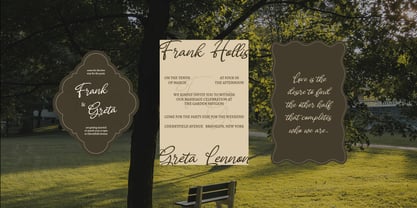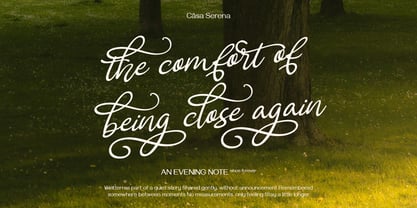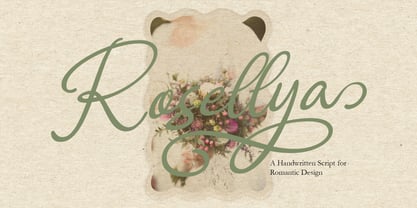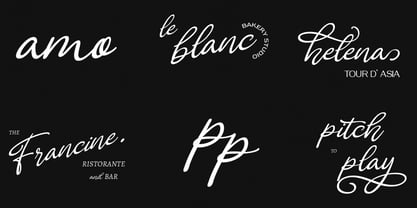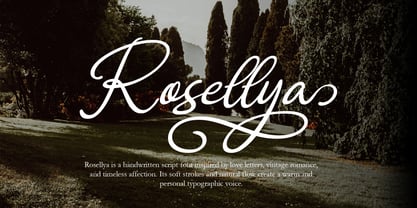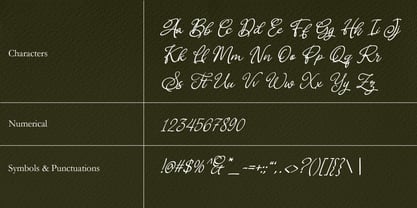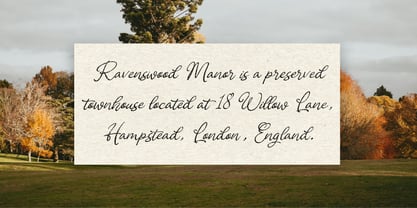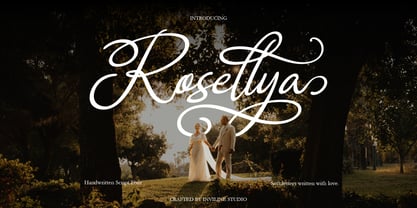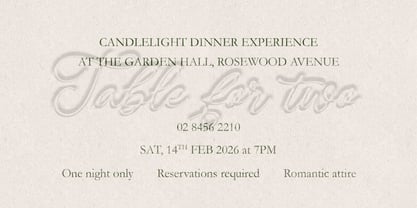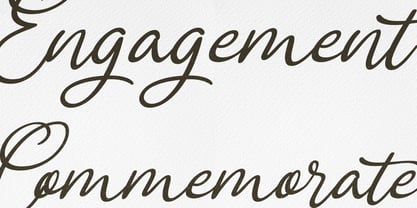
Rosellya
La famille de polices Rosellya a été conçue par Virgiawan Listanto et publiée par Inviline. Rosellya contient 1 styles. En savoir plus sur cette famille
Rosellya is a handcrafted signature font that radiates love, romance, and timeless elegance. Inspired by vintage handwritten letters, it showcases graceful strokes and natural fluidity, conveying a personal and intimate touch. This font includes a complete set of uppercase and lowercase letters, numerals, symbols, and punctuation, making it ideal for creating beautiful and meaningful designs for invitations, branding, stationery, and more. Perfect for wedding invitations, romantic quotes, and any project requiring an elegant and personal touch, Rosellya enhances logos, greeting cards, and social media posts with its distinct, sophisticated flair. Elevate your typography projects with the classic charm of Rosellya, where every letter tells a story.